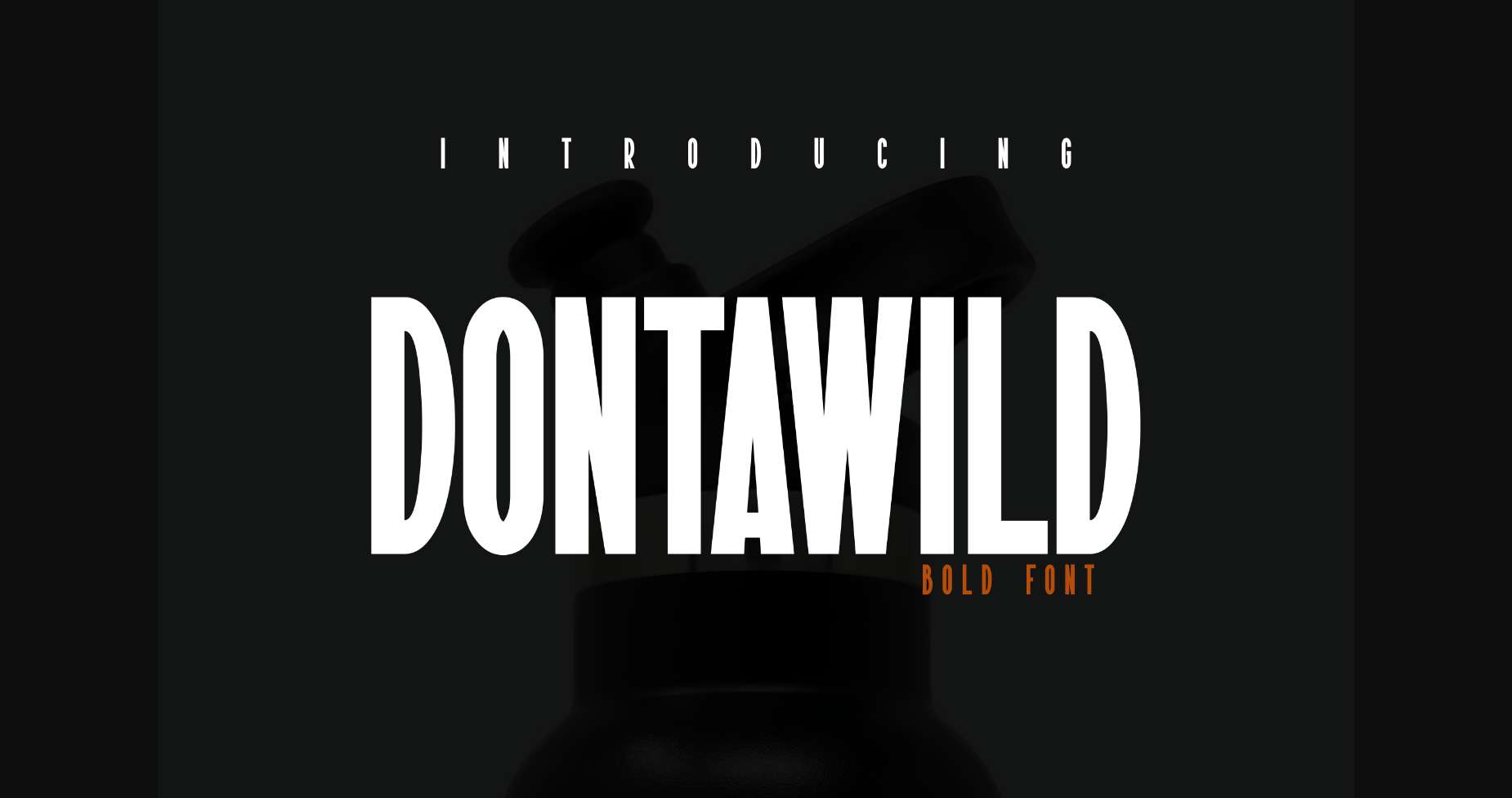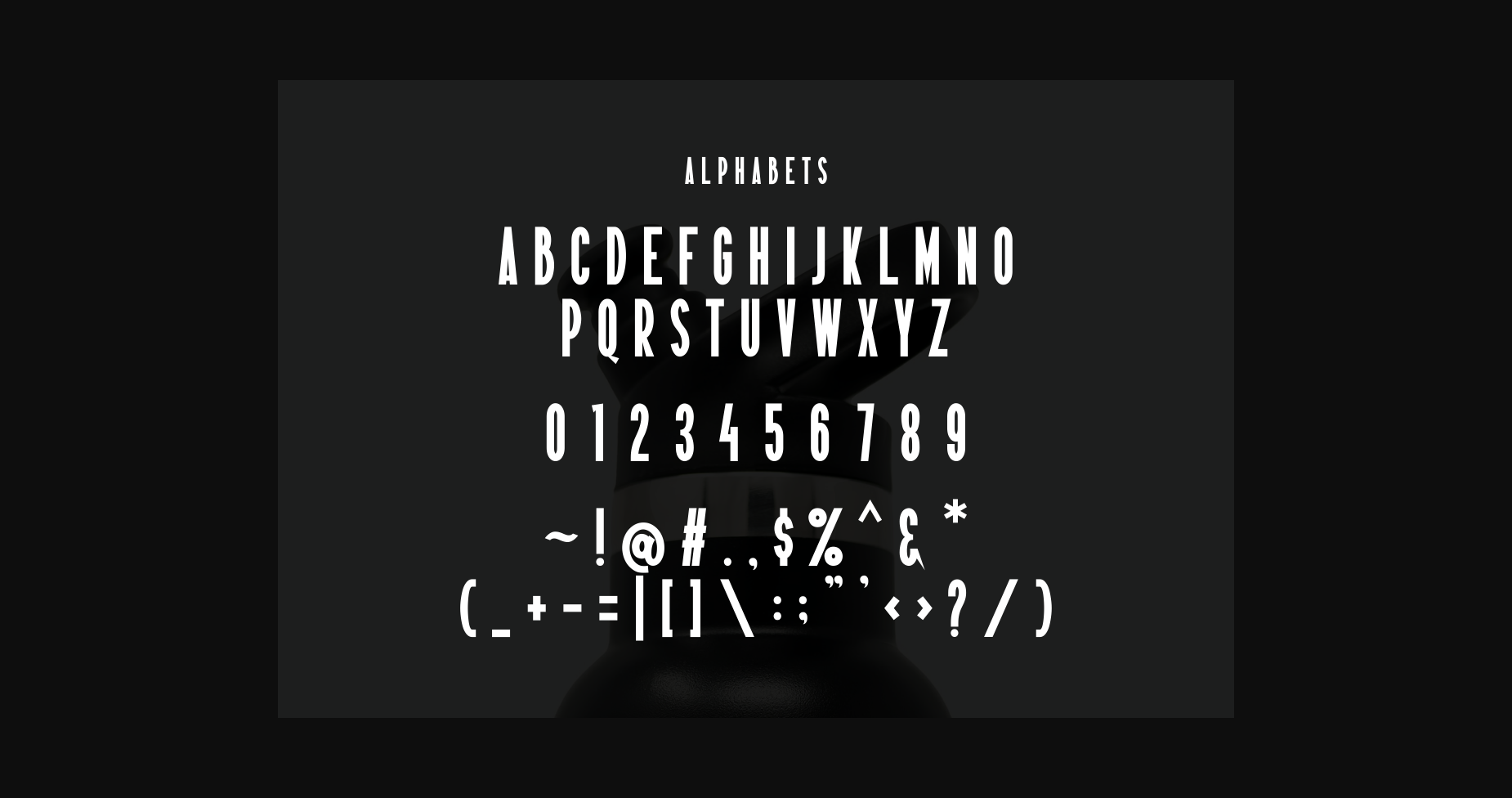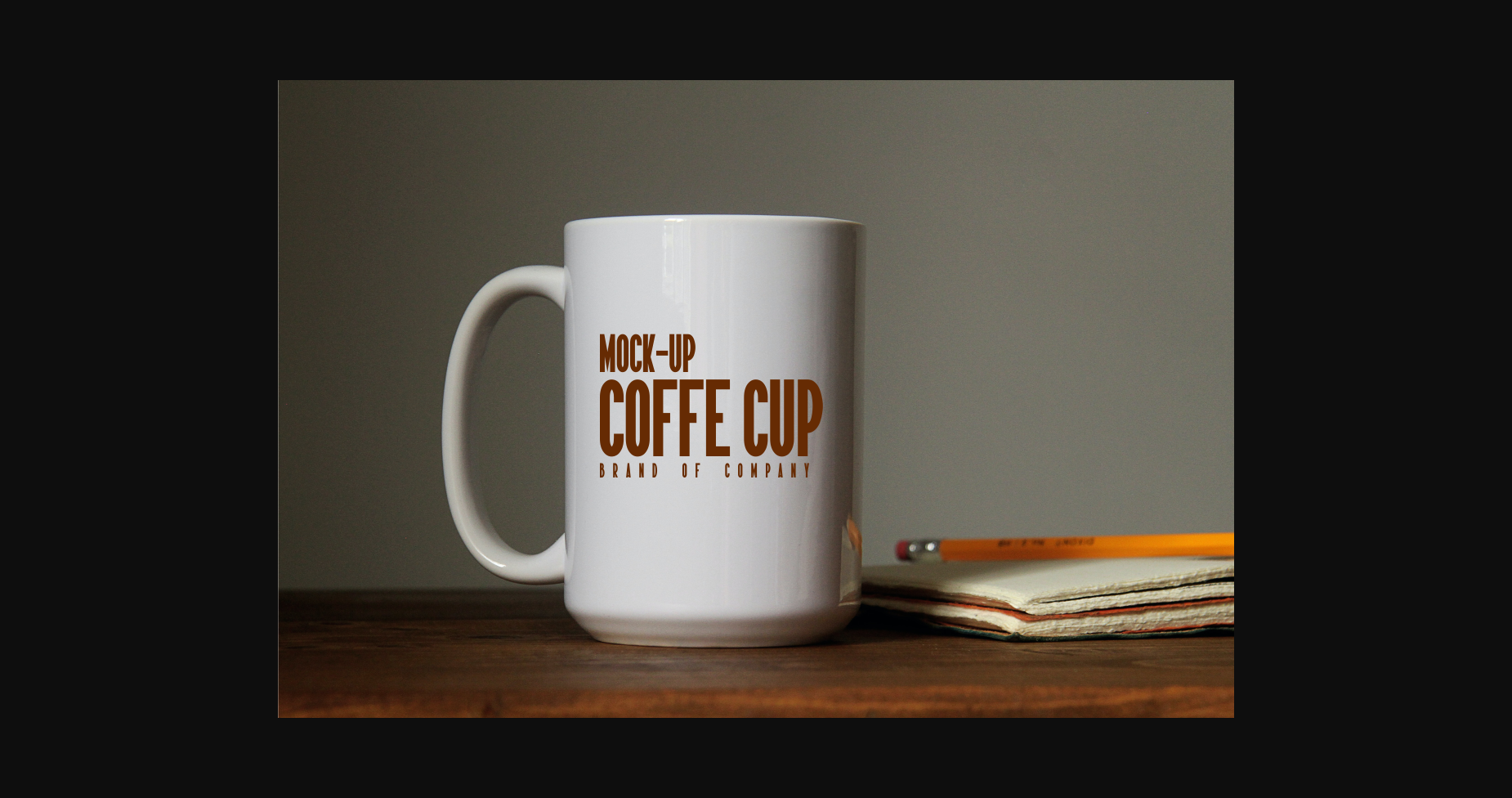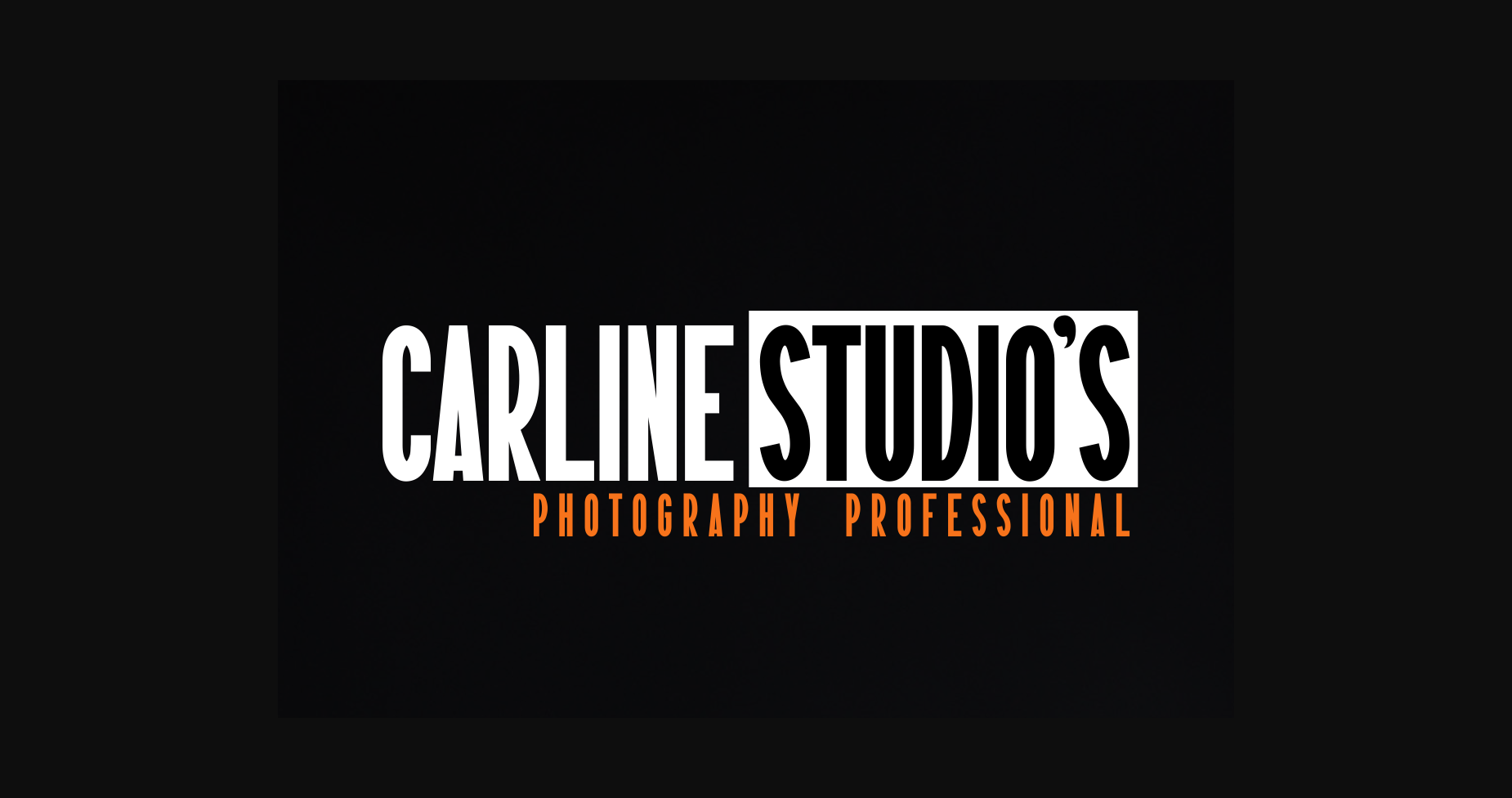
About Dontawild Font
Dontawil is a bold font suitable for writing company names.
Usually, this font is used in studios engaged in information technology or digital fields. Add it confidently to your projects and enjoy the results!